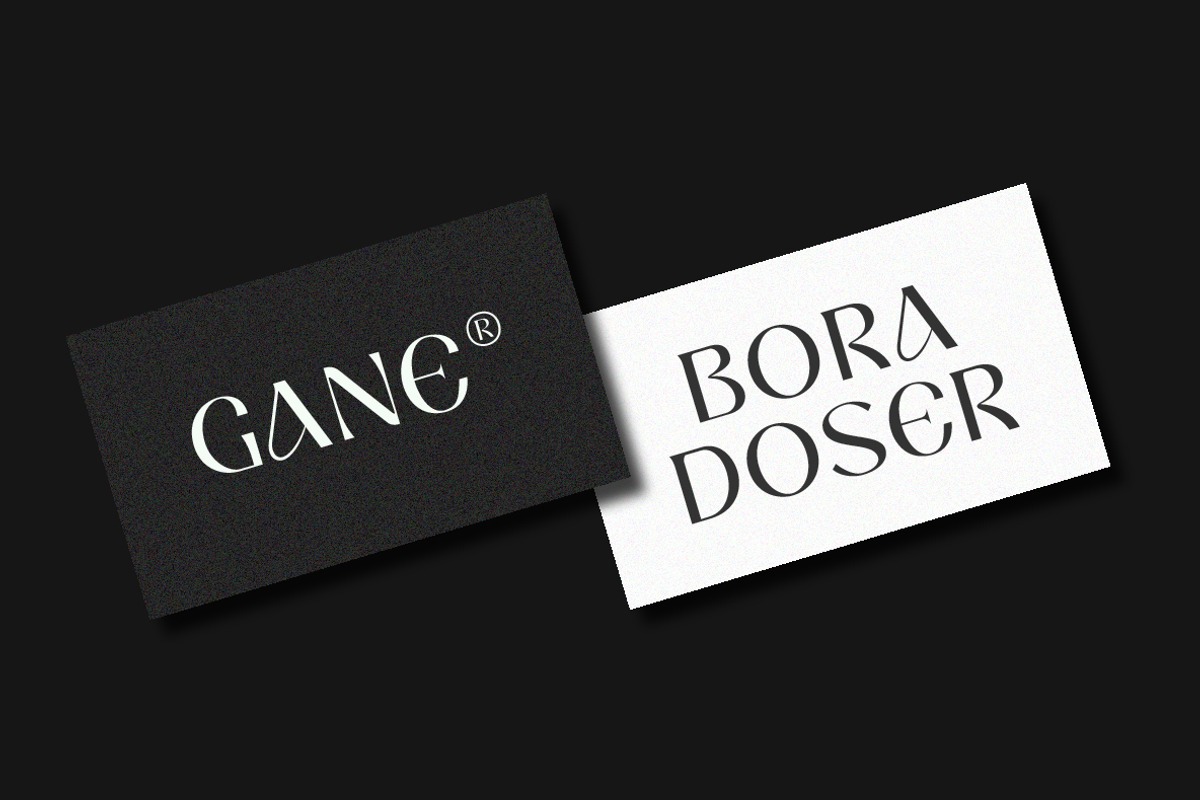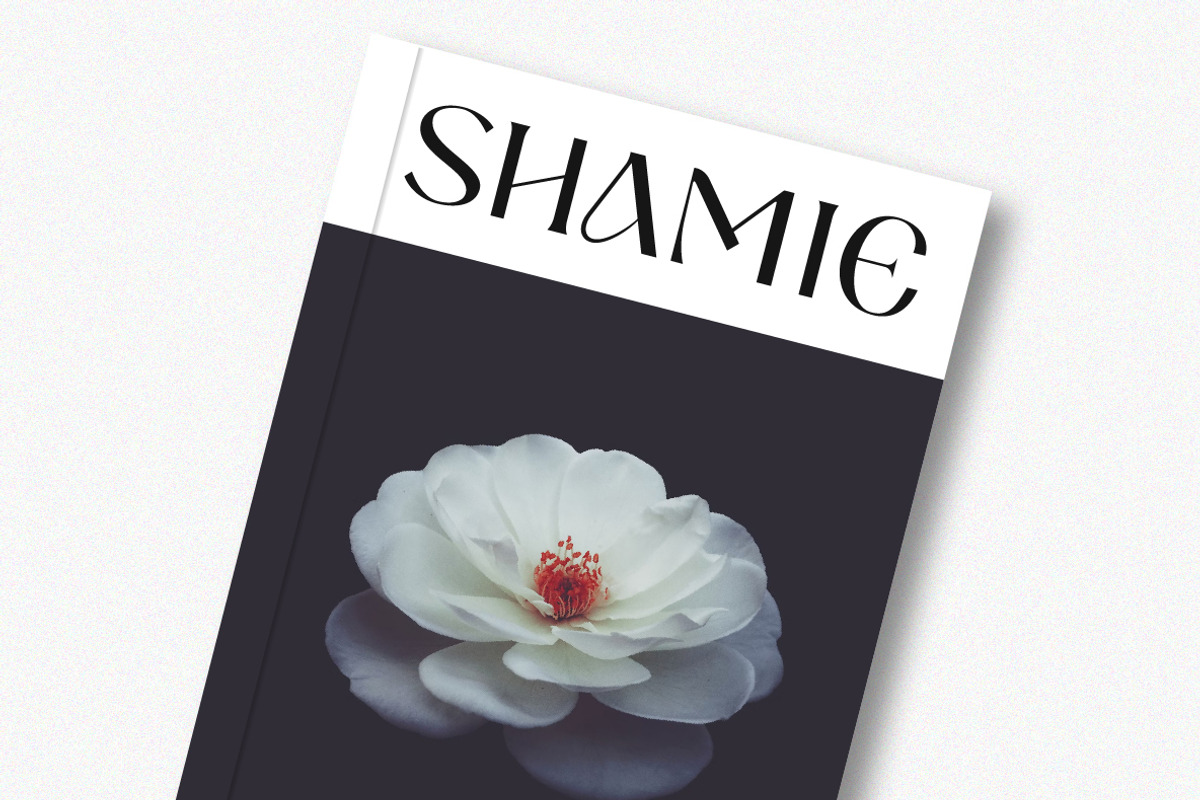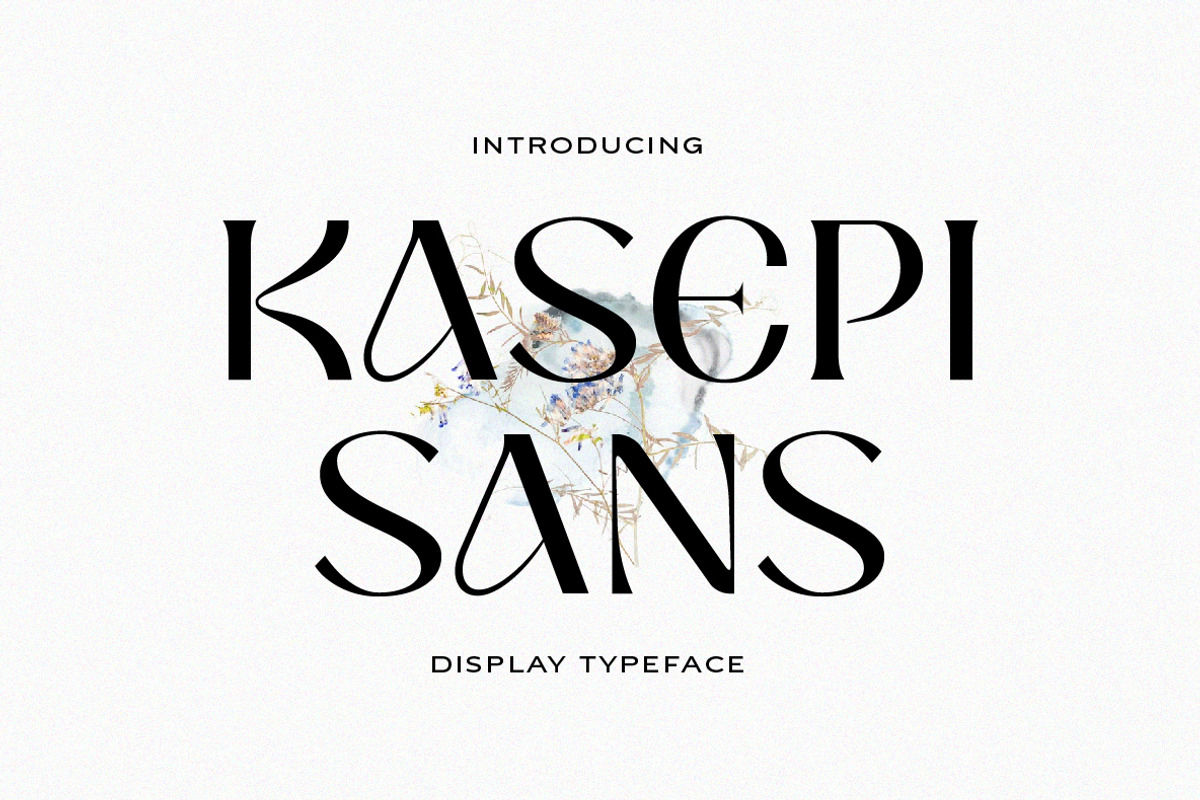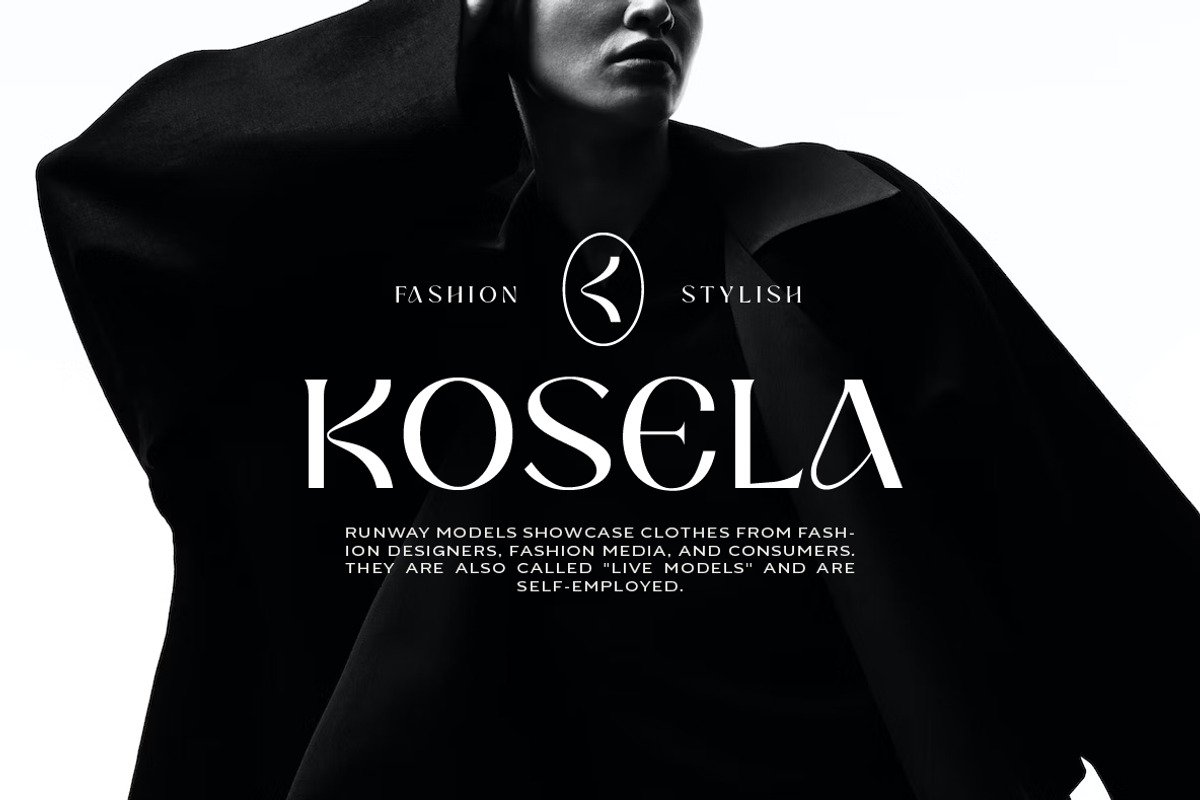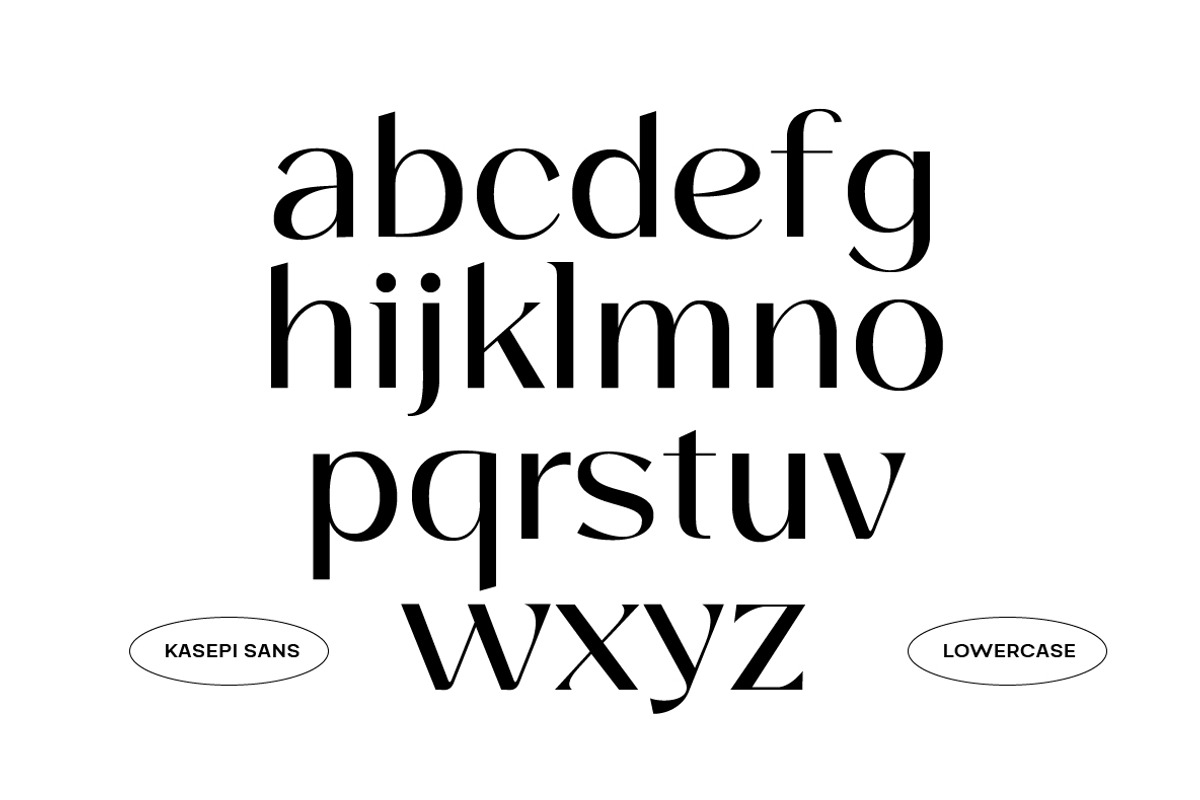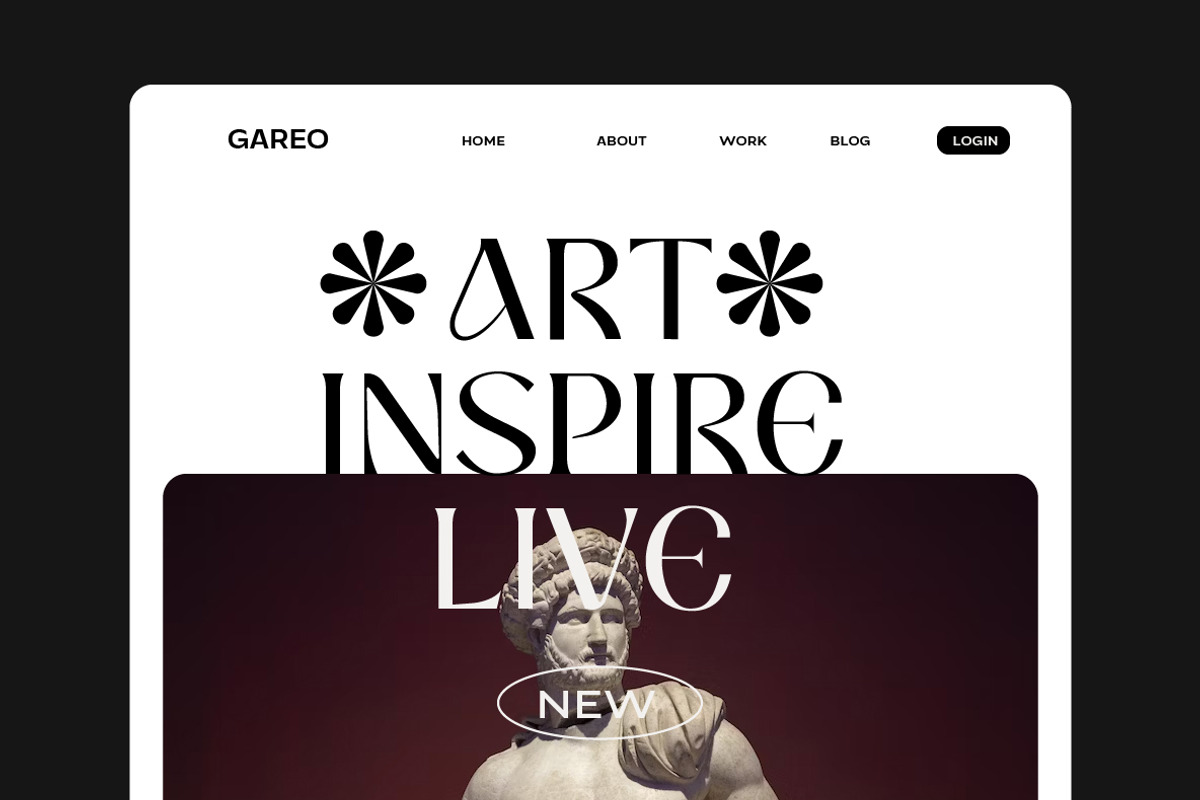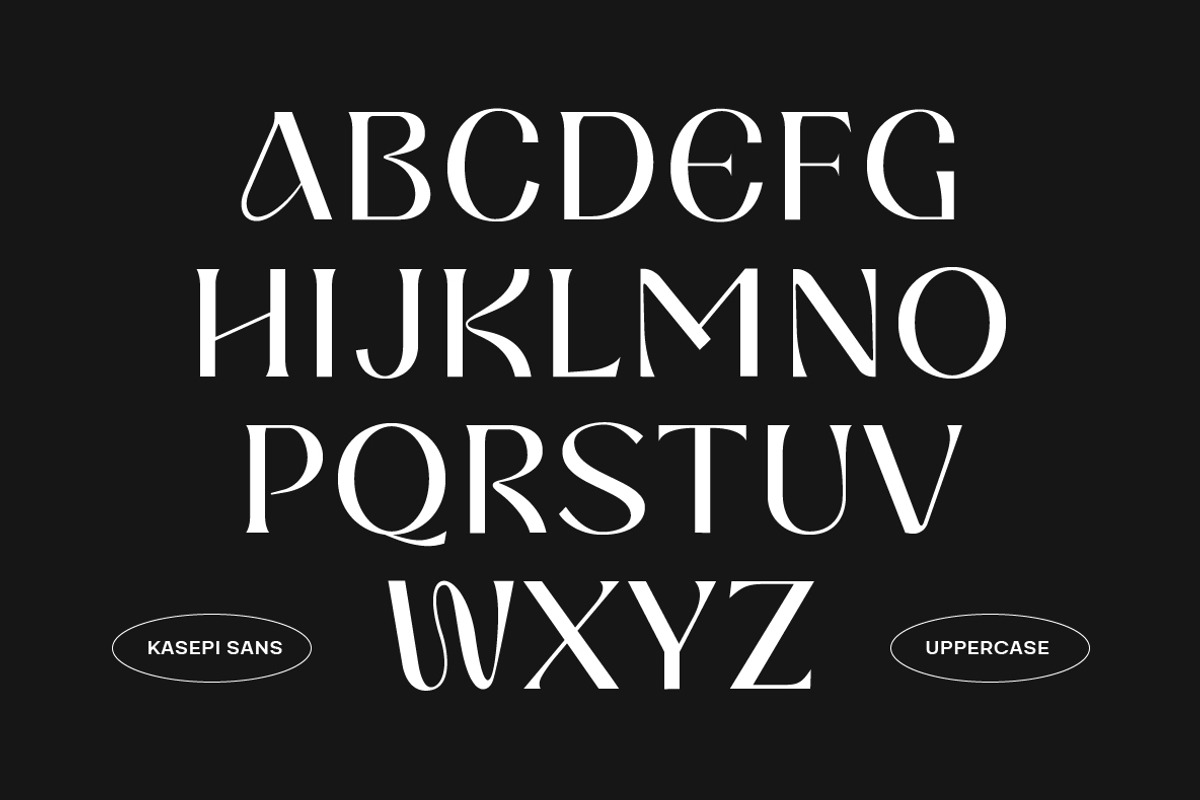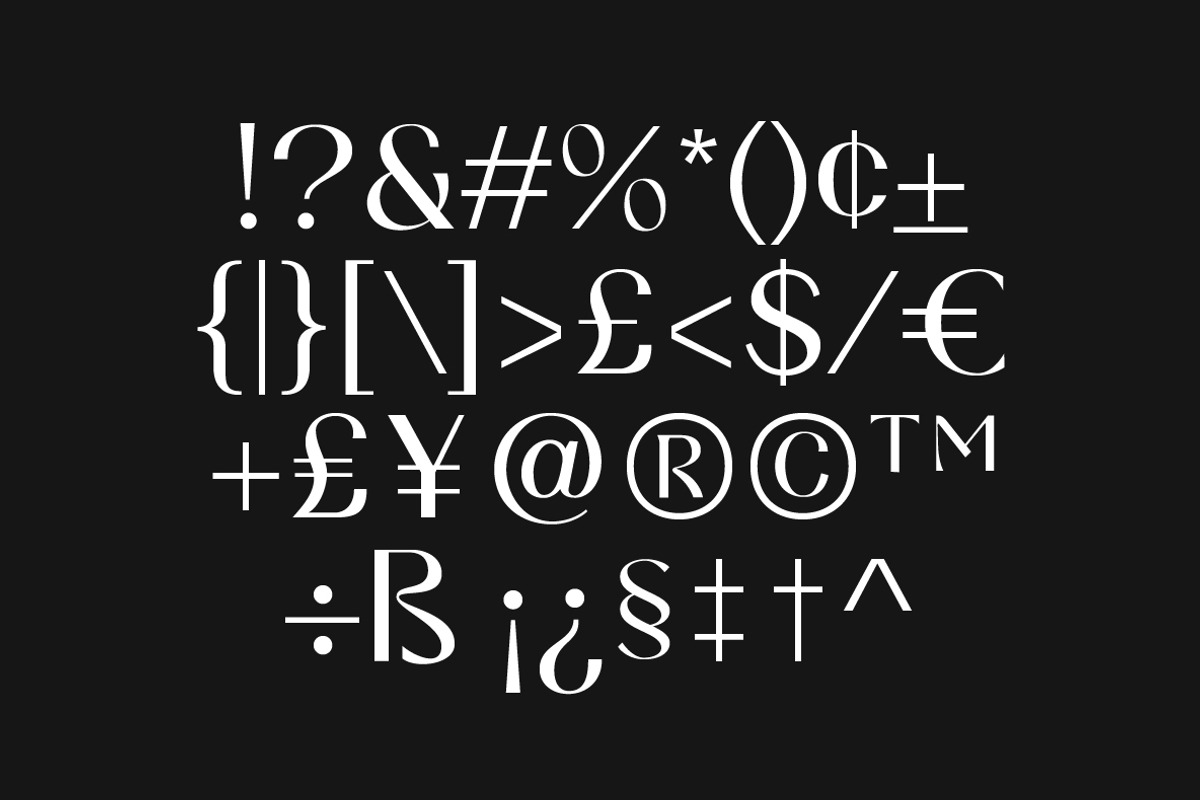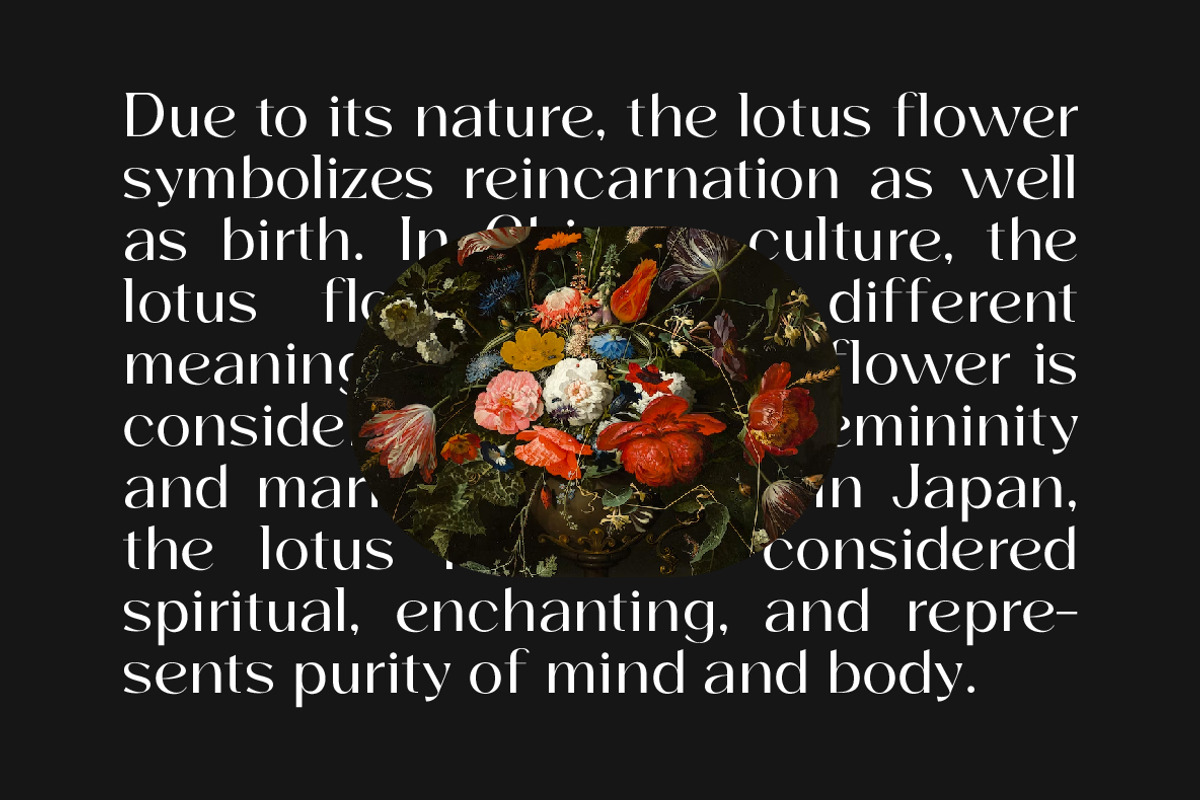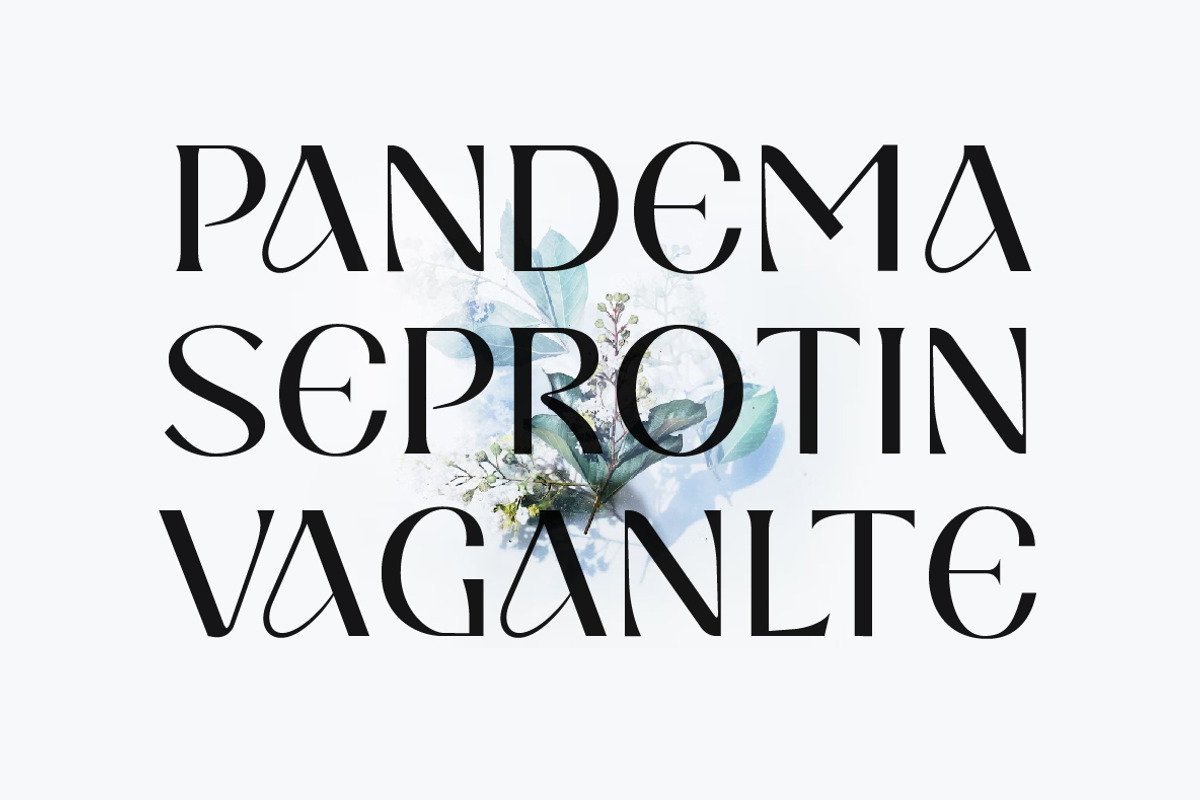
Kasepi Sans Display Fonts
Kasepi Sans Display Typeface is a font that combines a modern style with a classic touch. With bold lines and balanced proportions, this font gives off an attractive and classy impression. Great for use in titles, headers and headline designs that need a strong visual appeal.
This font style is a font that combines strength, clarity, and elegance. With its modern style and classic touch, it is ready to give your design an attractive and classy impression.